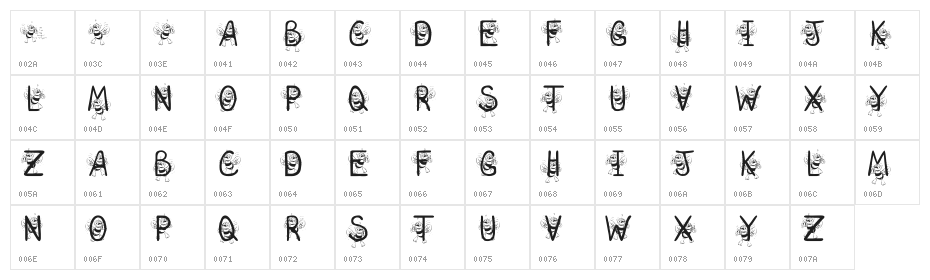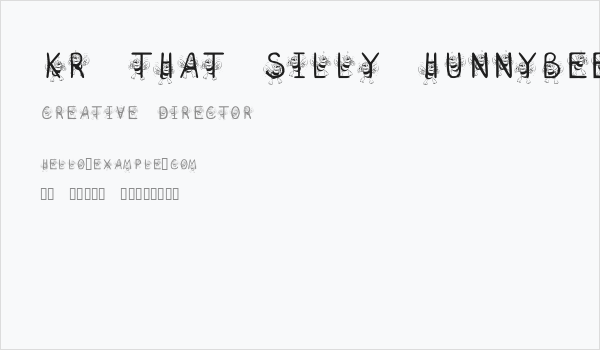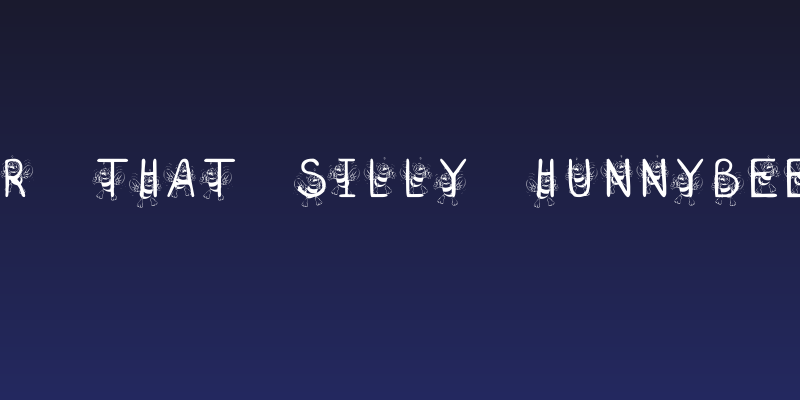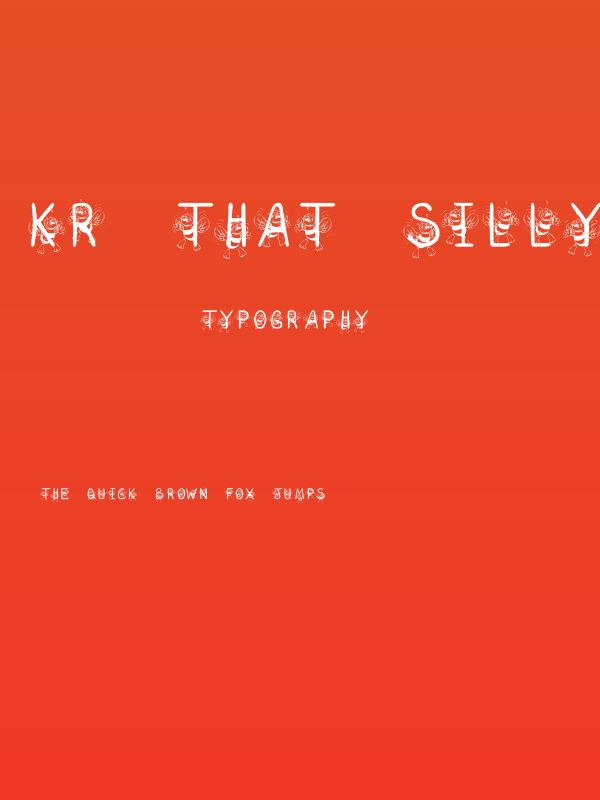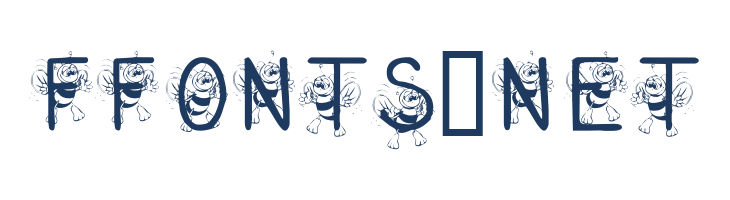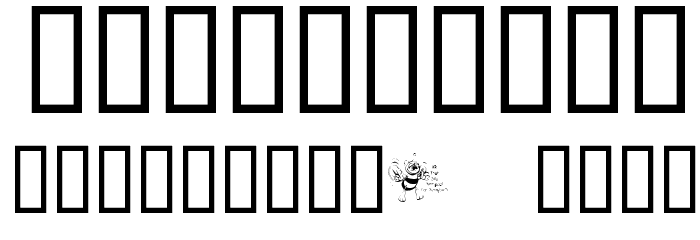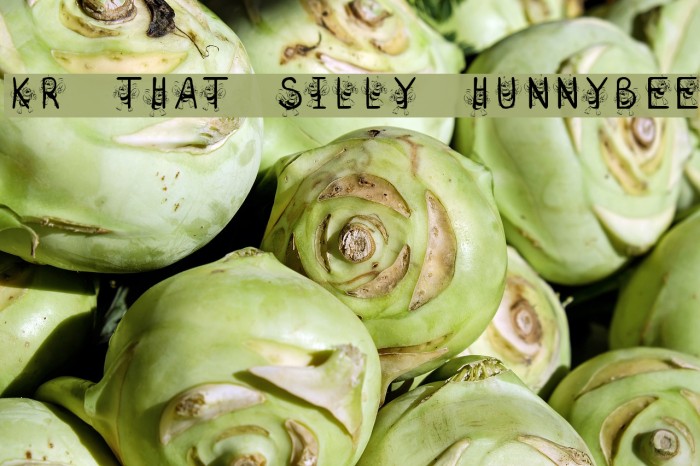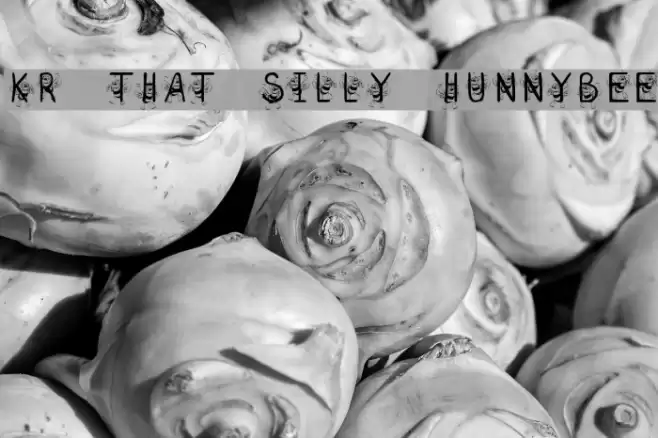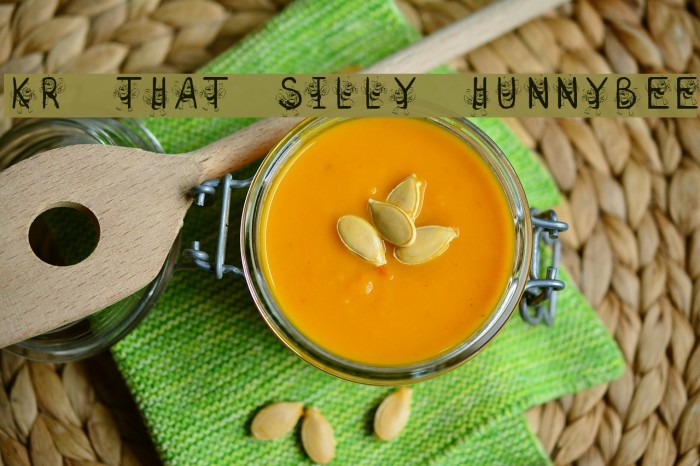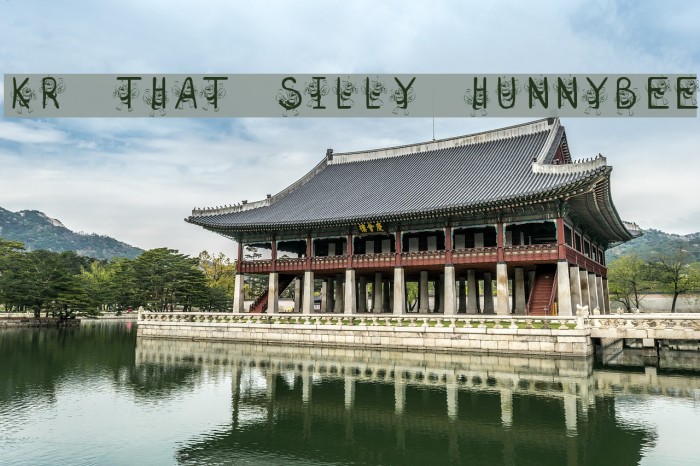
KR That Silly Hunnybee! Font
KR That Silly Hunnybee! Description
This playful and whimsical font features a unique design where each character is accompanied by a charming bee illustration. The letters are bold and slightly irregular, giving a hand-drawn feel that adds to its quirky charm. The bees are integrated into the design, creating a lively and animated appearance. This font is perfect for projects that require a fun and lighthearted touch, such as children's books, playful branding, or creative invitations. The overall style is decorative and imaginative, making it stand out in any design.
| Proposed Projects | Ideal for children's books, playful branding, creative invitations, and any project needing a fun touch. |